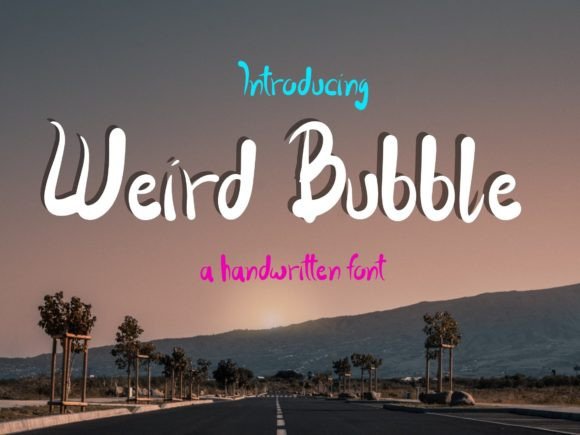
Behold the Enchanting Realm of Weird Bubble: A Handwritten Font That Sparkles With Creativity
Step into the whimsical world of Weird Bubble, a captivating script font that embodies the essence of playful artistry. With its charmingly uneven strokes and bubbly curves, this font adds a touch of whimsy to any design project. Its unique character makes it the ideal choice for eye-catching logos, quirky branding, and whimsical posters.
Unlock the Limitless Creative Potential of Weird Bubble: A Multifaceted Muse for Your Design Endeavors
Indulge your creative spirit as you explore the versatility of Weird Bubble. This multifaceted font effortlessly complements an array of design concepts, from playful pop art to nostalgic vintage themes. It seamlessly adapts to diverse projects, including invitations, greeting cards, social media posts, and eye-catching headlines. Its versatility knows no bounds, making it the perfect companion for any creative endeavor.
Experience the Transformative Power of Weird Bubble: Elevate Your Designs to New Heights
With Weird Bubble, prepare to witness the transformation of your creative visions into captivating realities. This remarkable font possesses an innate ability to elevate designs, adding a touch of magic and individuality. Unleash your imagination and let Weird Bubble breathe life into your projects, taking them to unprecedented heights of visual appeal.
Embrace the Uniqueness of Weird Bubble: A Font That Stands Out From the Crowd
In a world of conformity, Weird Bubble emerges as a beacon of individuality. Its unconventional charm sets it apart from the ordinary, ensuring that your designs stand out from the crowd. Embrace the power of uniqueness and let Weird Bubble infuse your creations with personality and flair. Its originality will leave a lasting impression, captivating audiences and leaving them yearning for more.